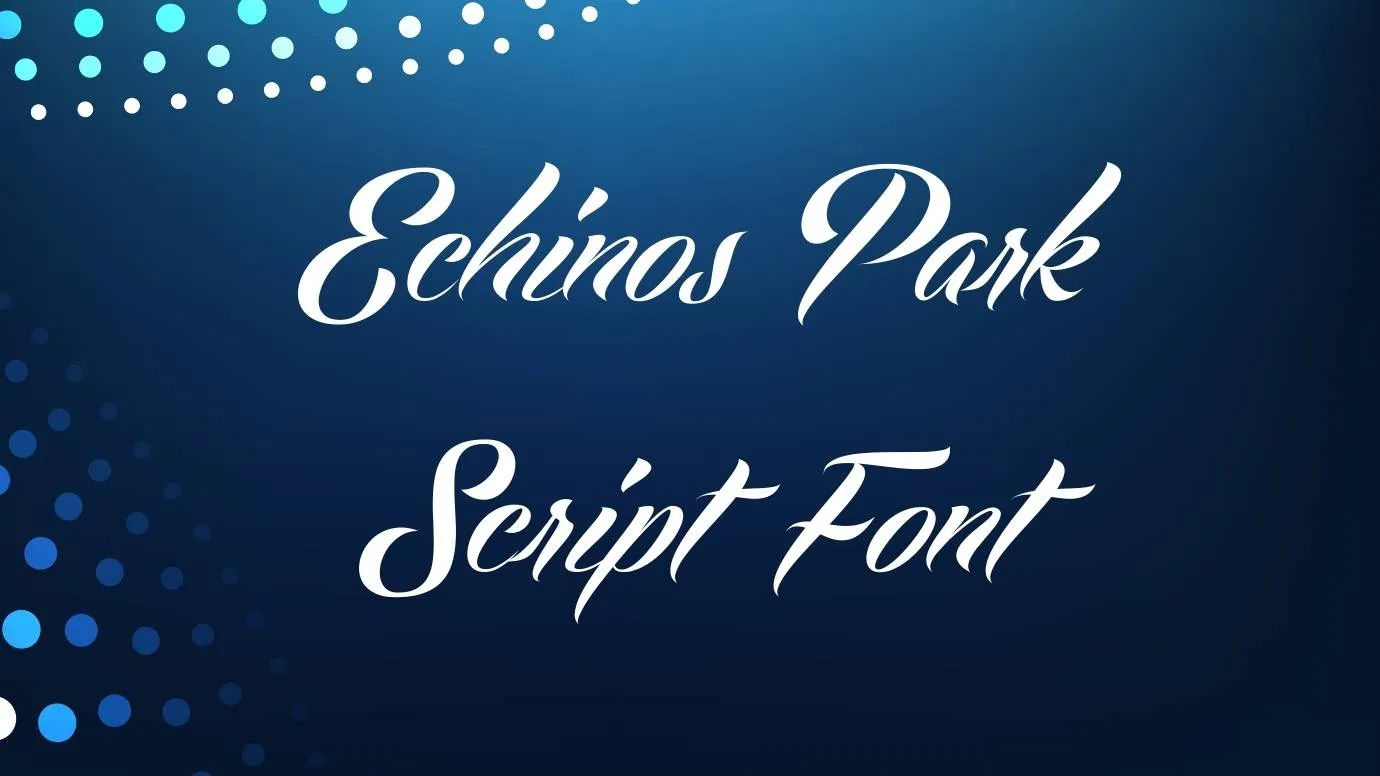
Echinos Park Script Font Family is a handwritten typeface that has fantastic brush strokes. Mans Grebäck is the primary designer of this typeface which was developed of this font in 2012. This typeface has a unique texture and attractive glyphs.
Echinos Park Script Font
NameEchinos Park Script Font
TypeCalligraphy
DesignerMans Grebäck